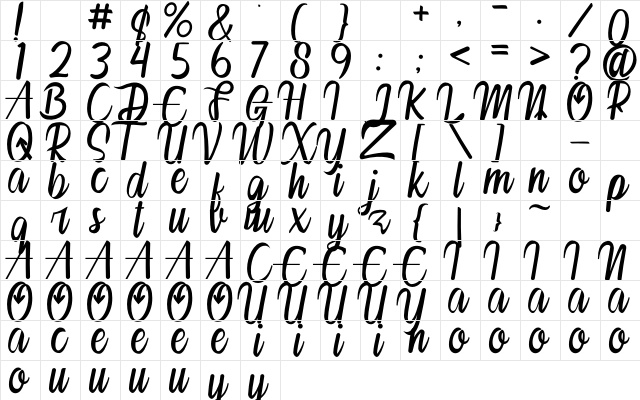
Fresh Drink Regular
Design Context for Fresh Drink Typeface
Fresh Drink is a composed and adaptable typeface that performs quietly and consistently across a wide range of design contexts.